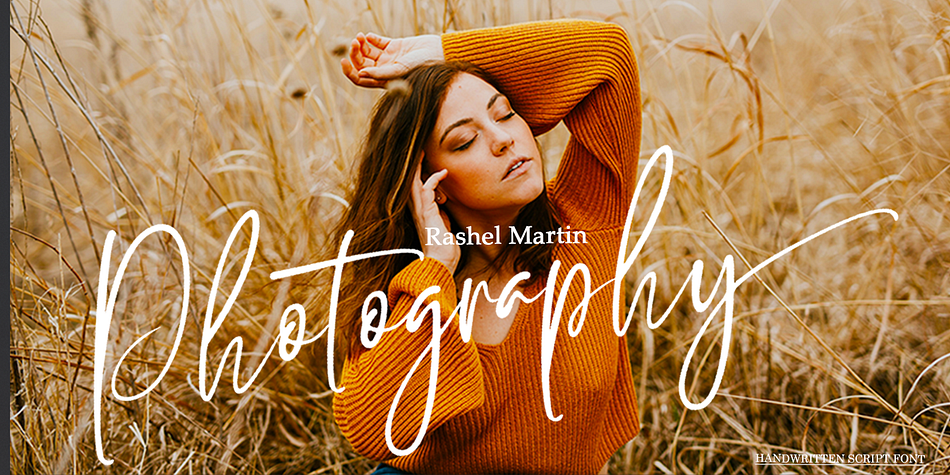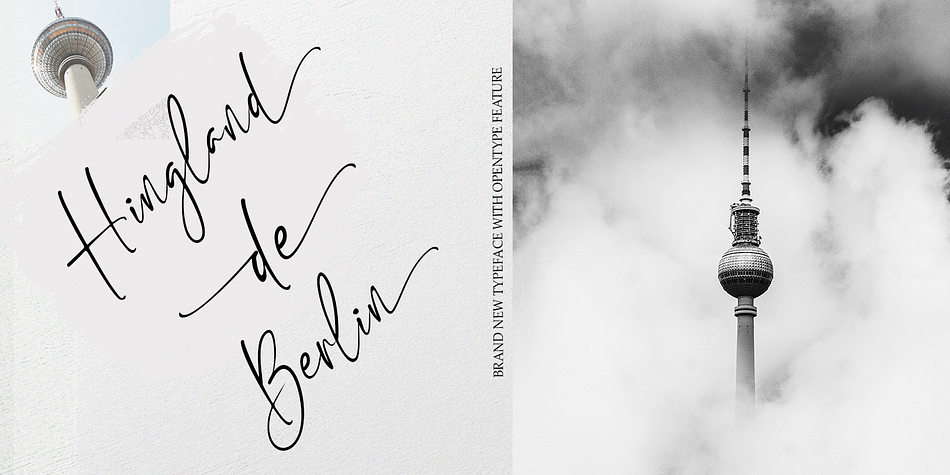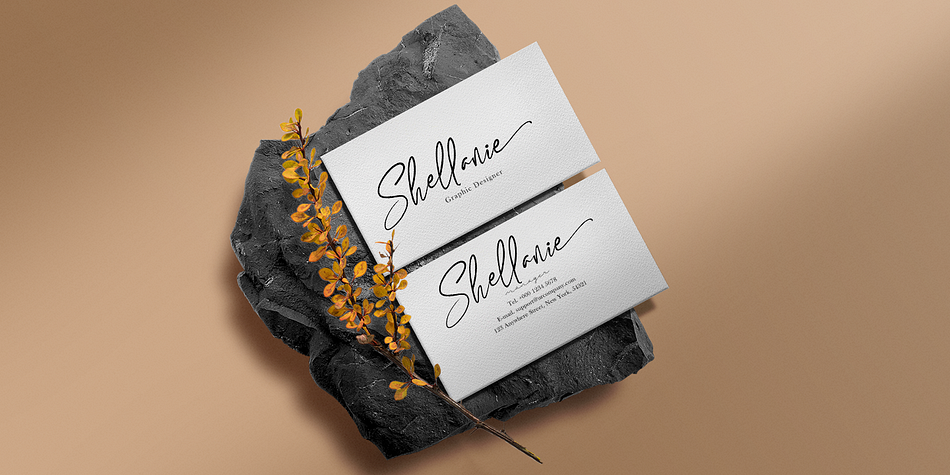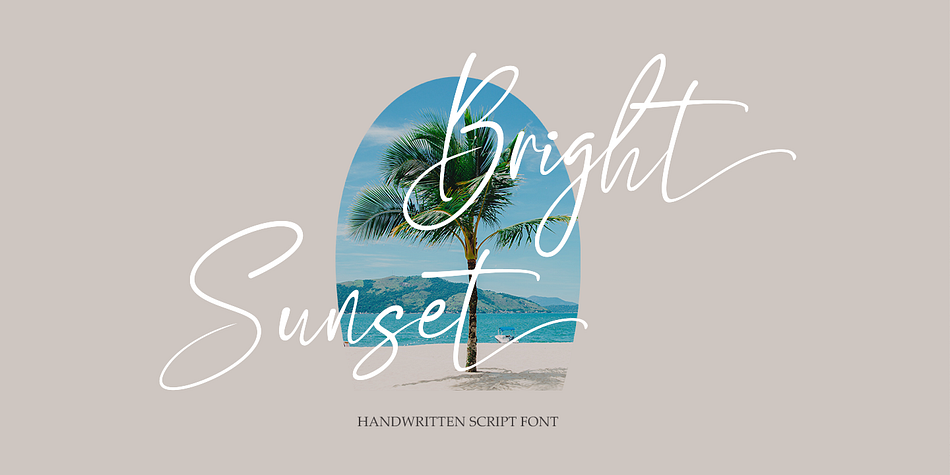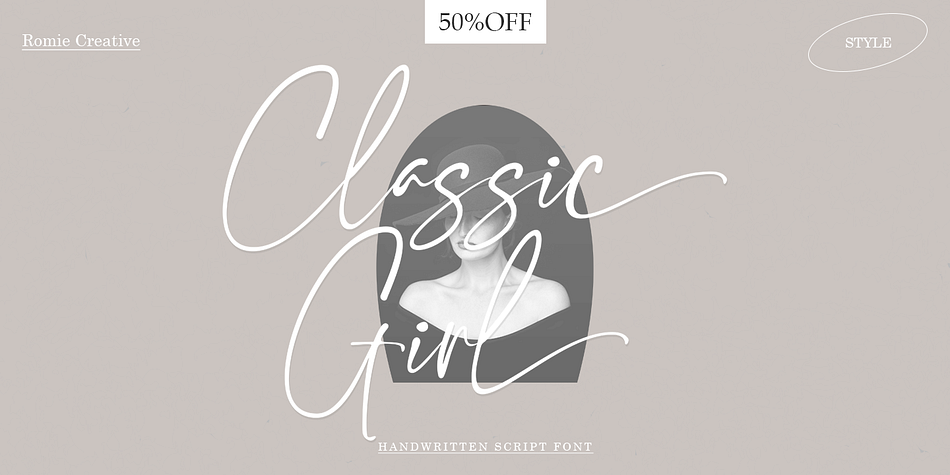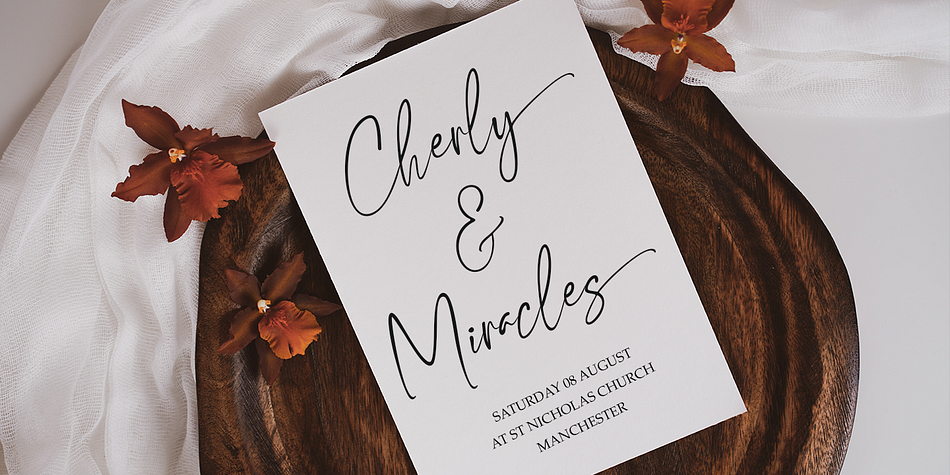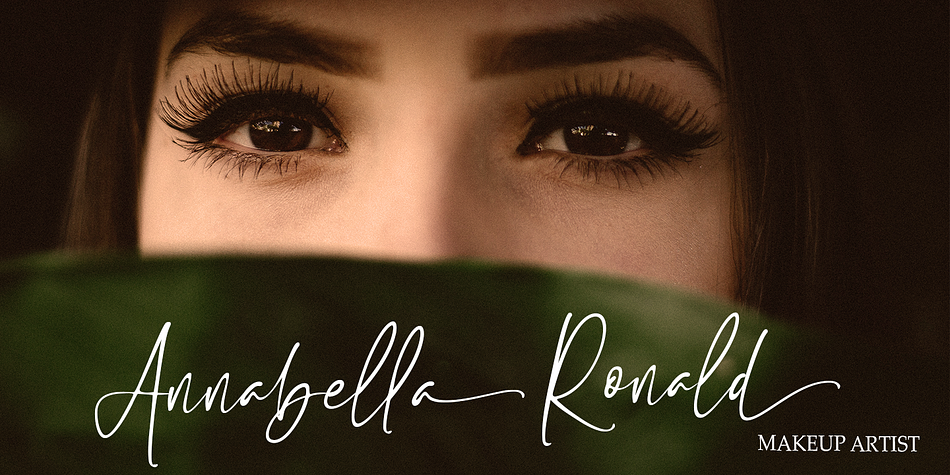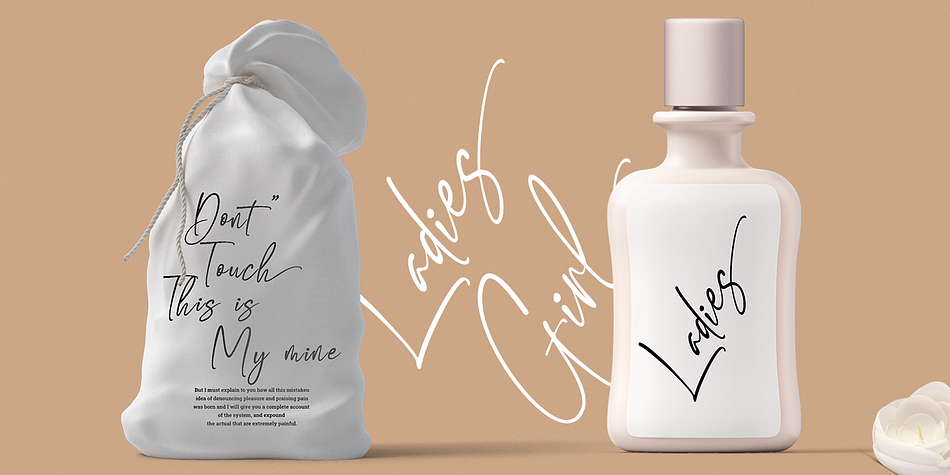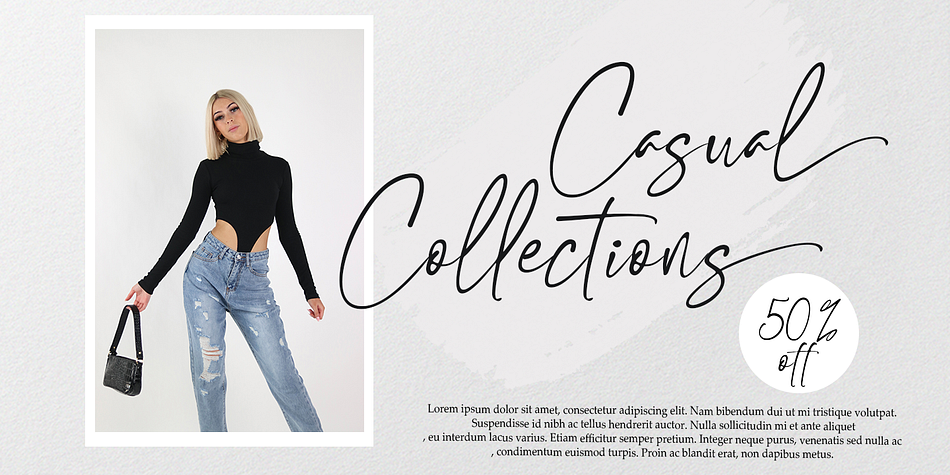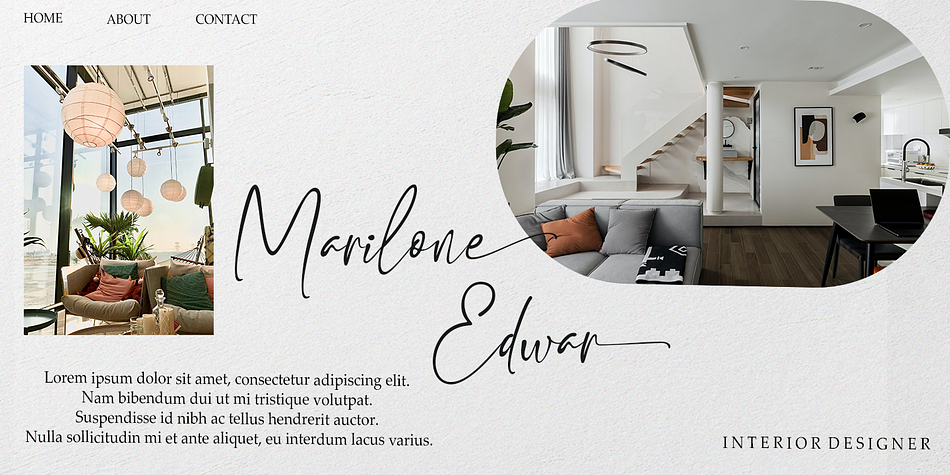
Classic Girl
Classic Girl is a modern calligraphy font family. This typeface has two styles and was published by Romie Creative.
Classic Girl is a signature Font with a handwritten and script style making this font look elegant, natural, stylish and perfect for any extraordinary project that requires a distinctive taste.
Classic Girl would be perfect for photography, watermarks, social media posts, advertising, logos & branding, invitations, product designs, labels, stationery, wedding designs, product packaging, special events, or anything else that needs a distinctive taste.